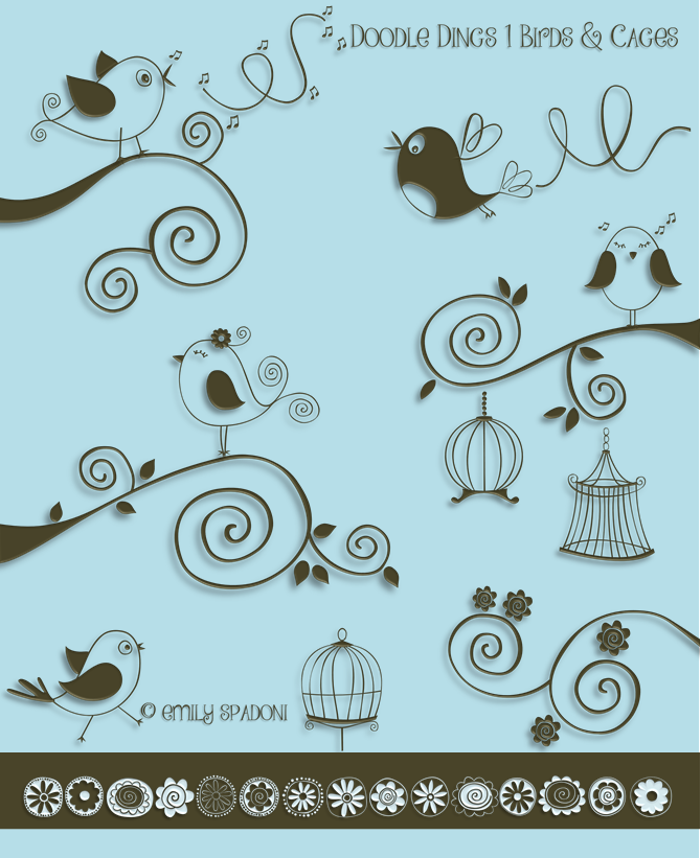
DOODLE DINGS 1 Birds Cages Font
Over 70 Hand drawn, Doodled illustrations. These cute birds and cages make nifty greeting cards, scrapbook pages, embroidery projects, over all patterns and even wall art.
I like this font. The Birds are Well Drawn.